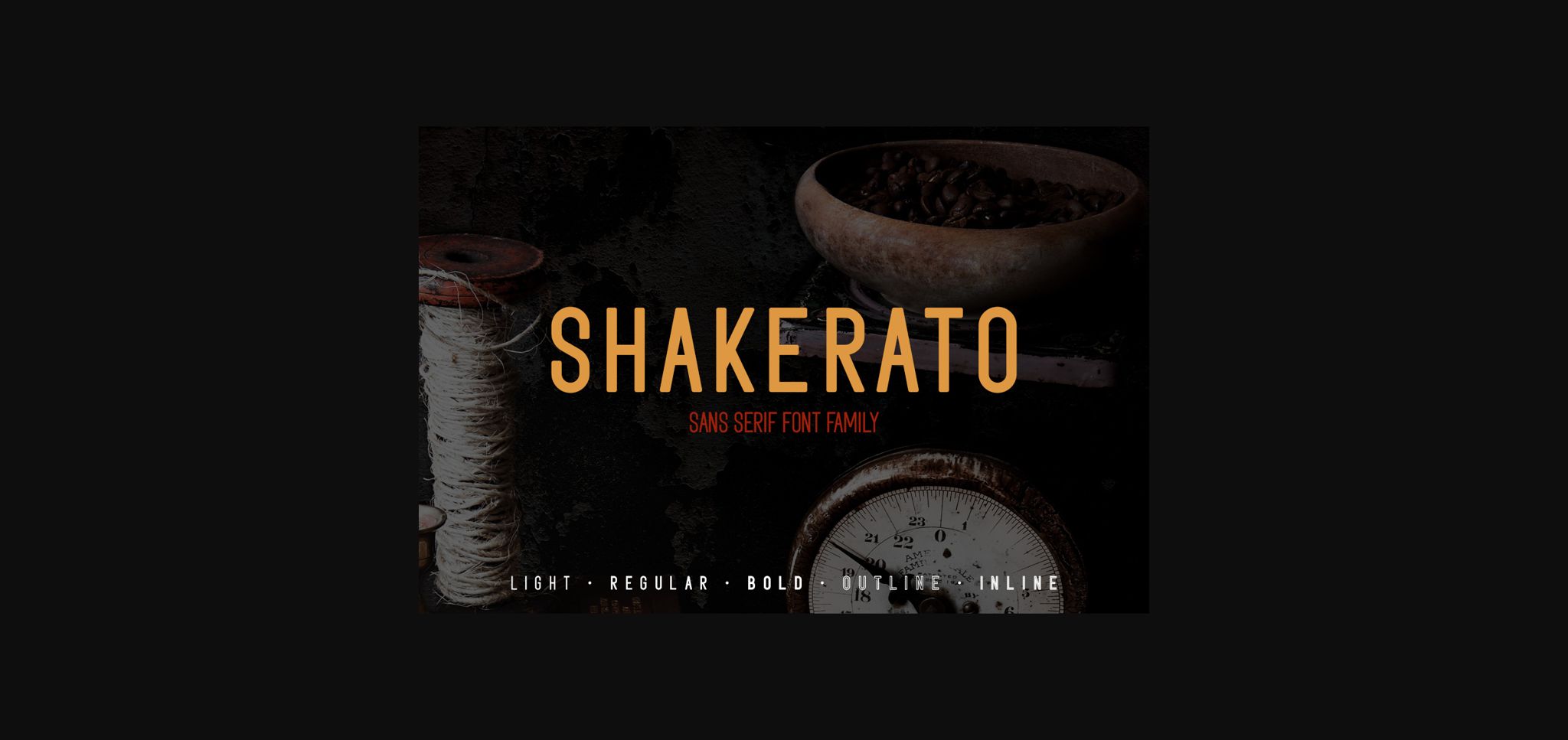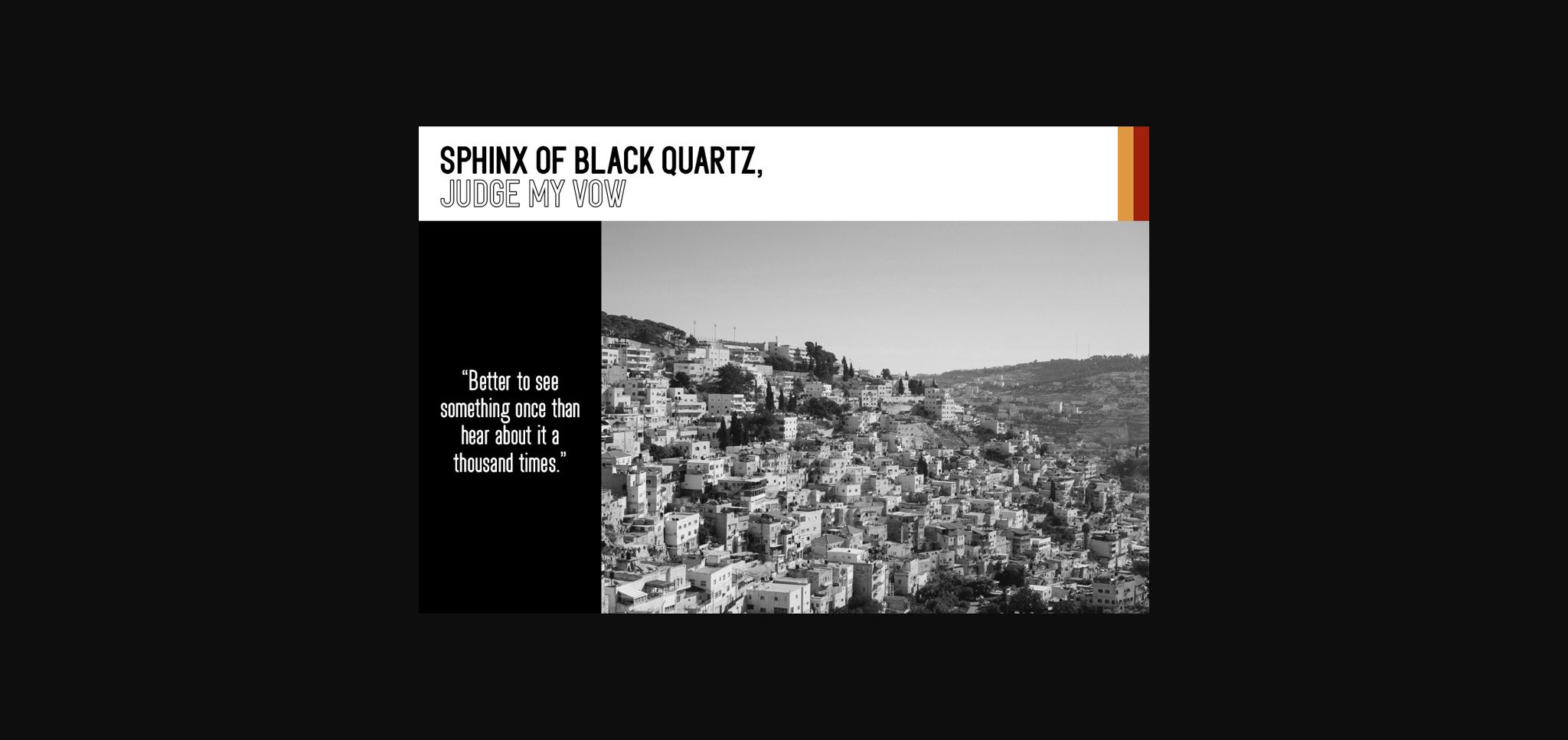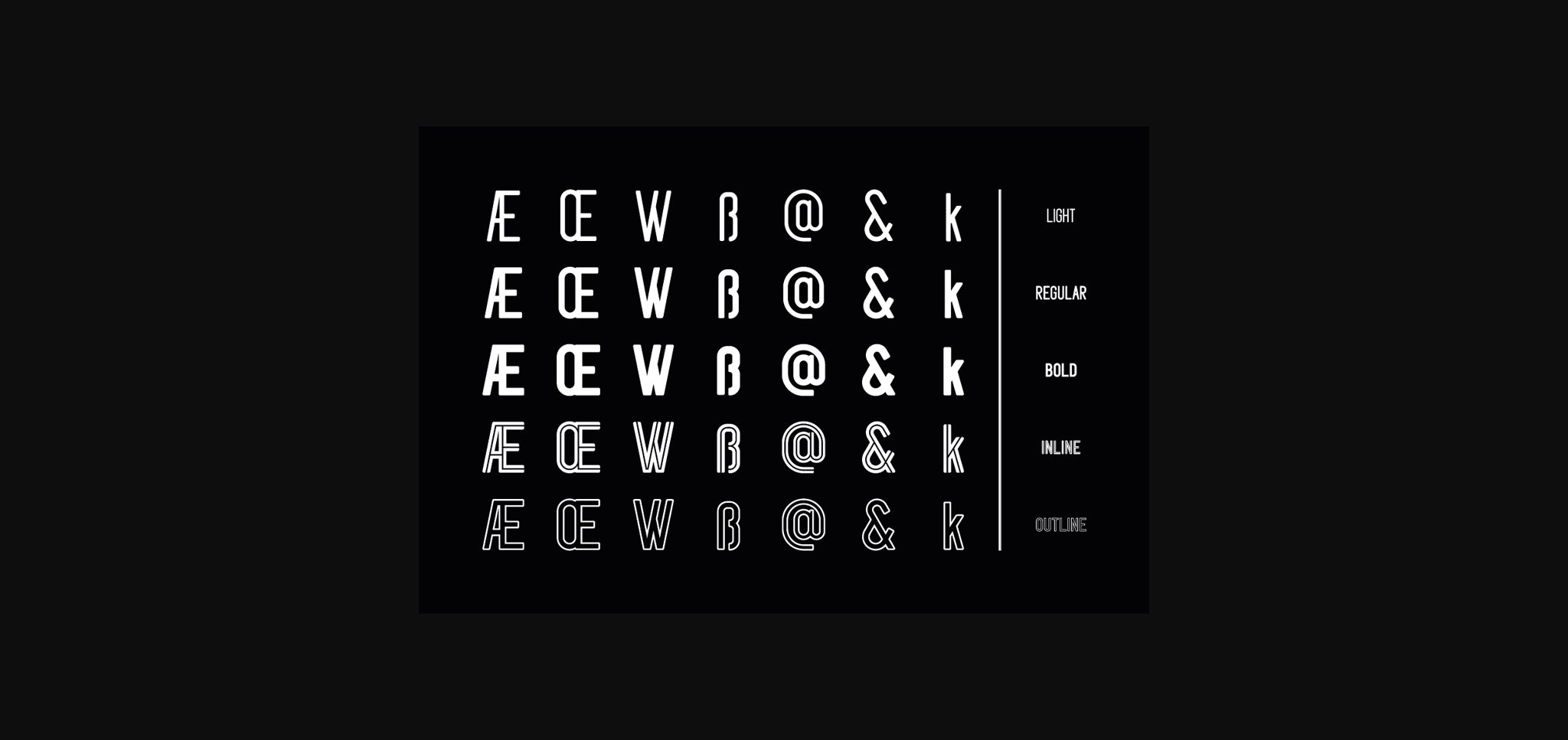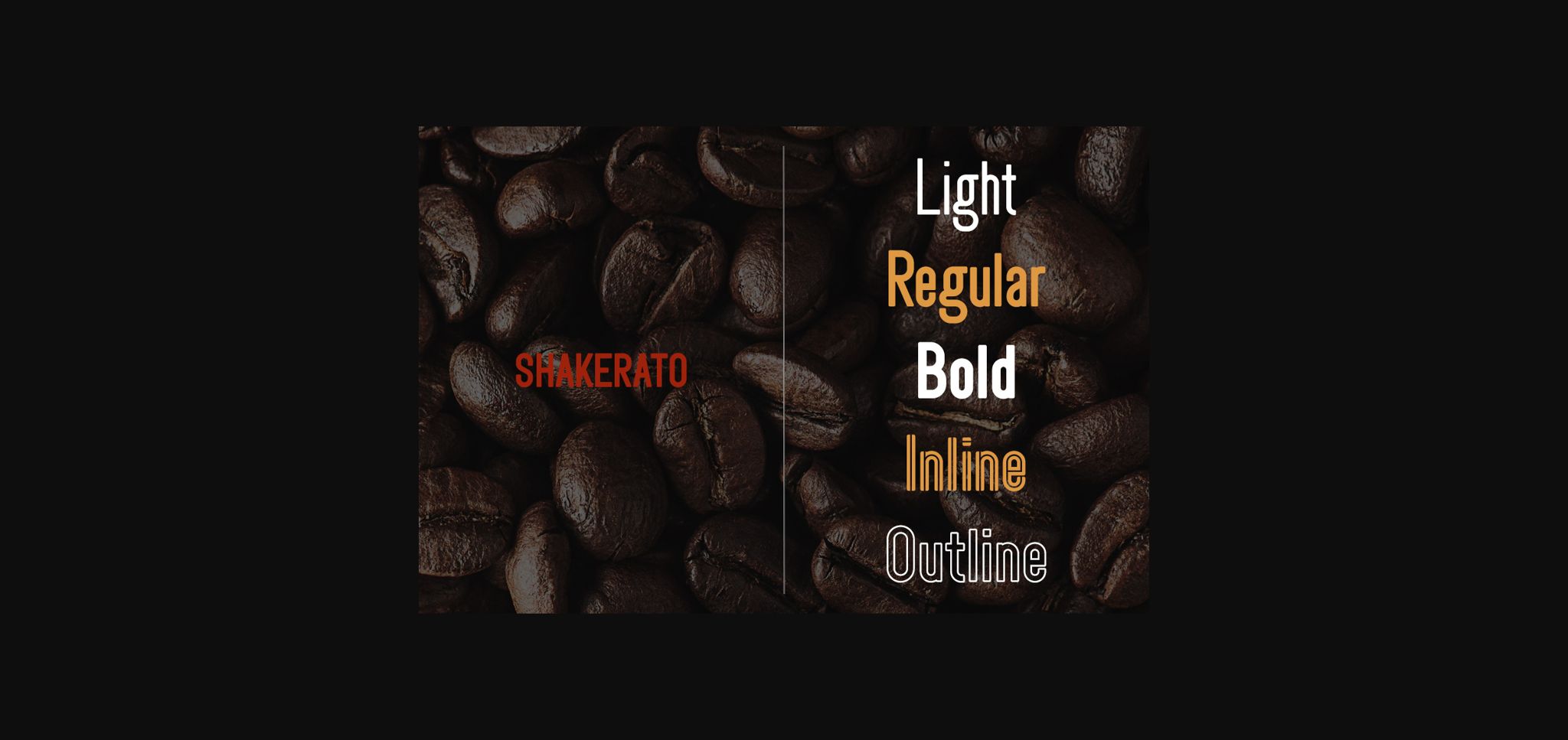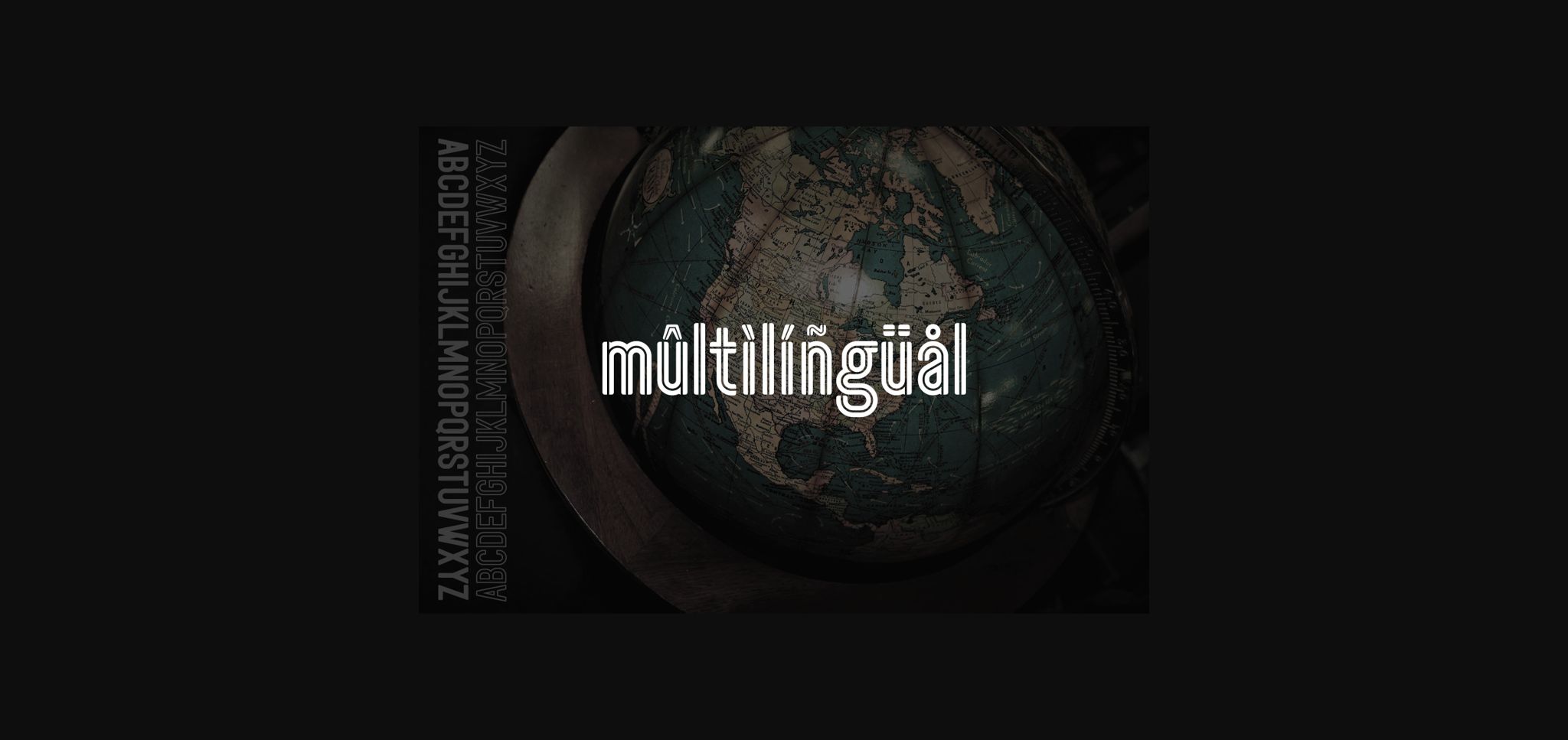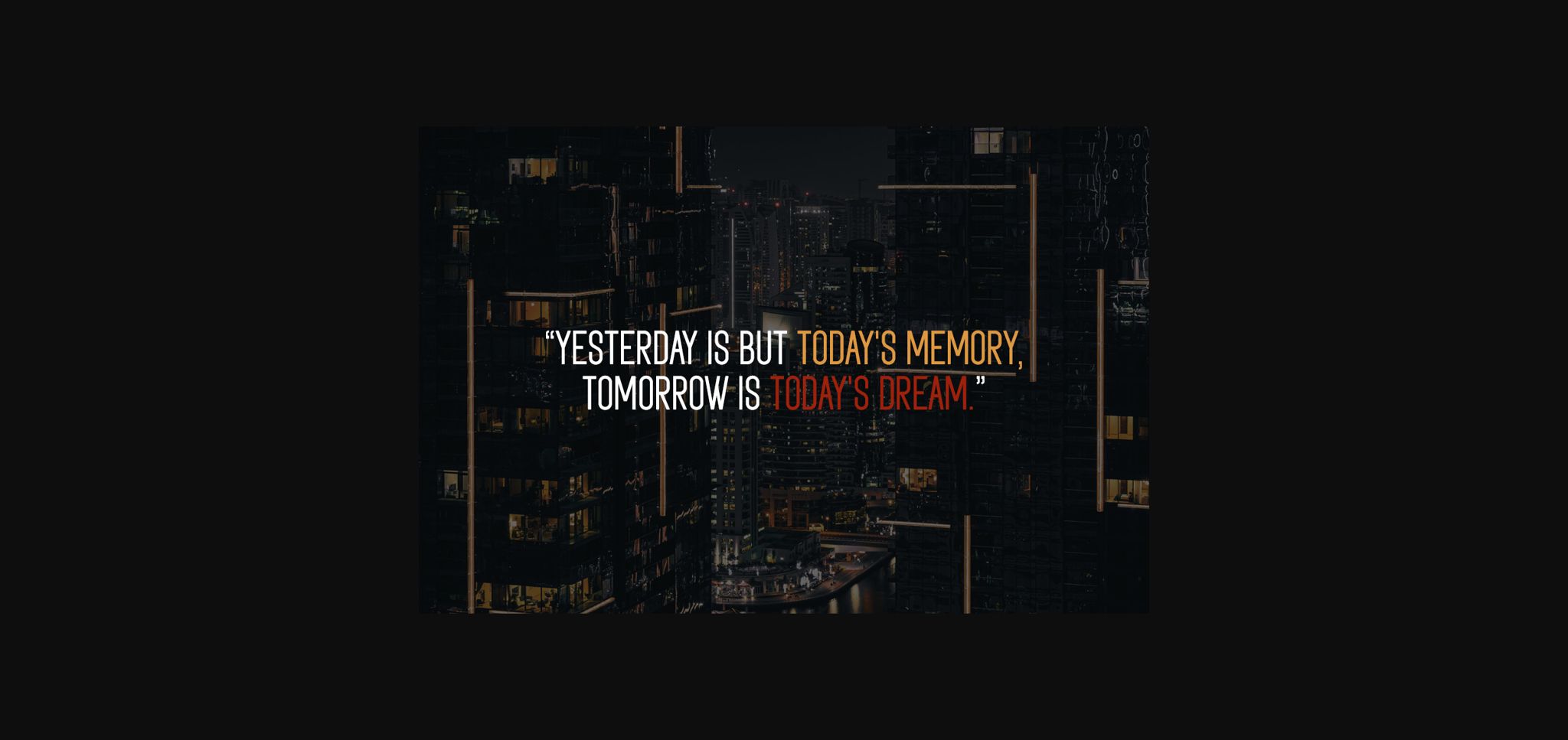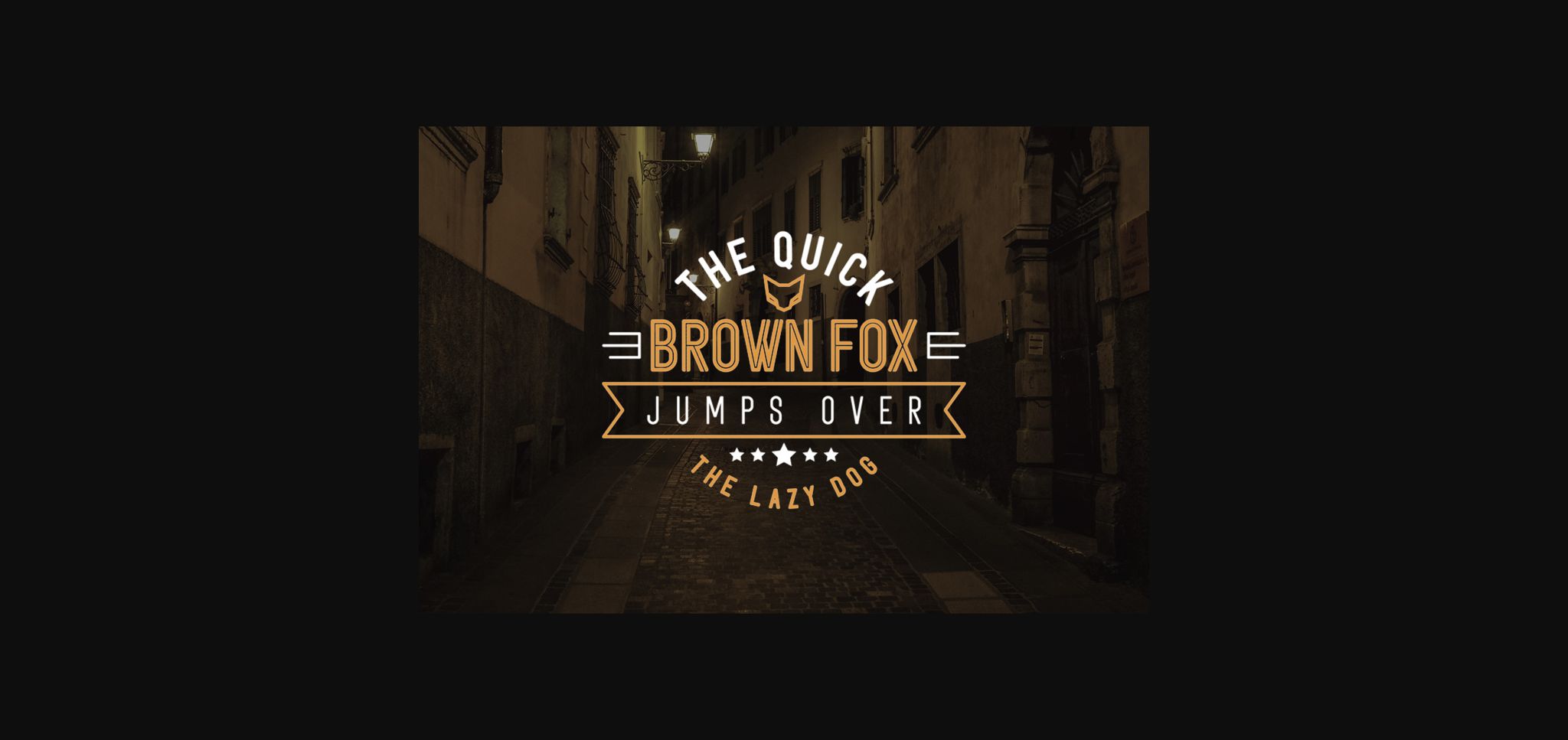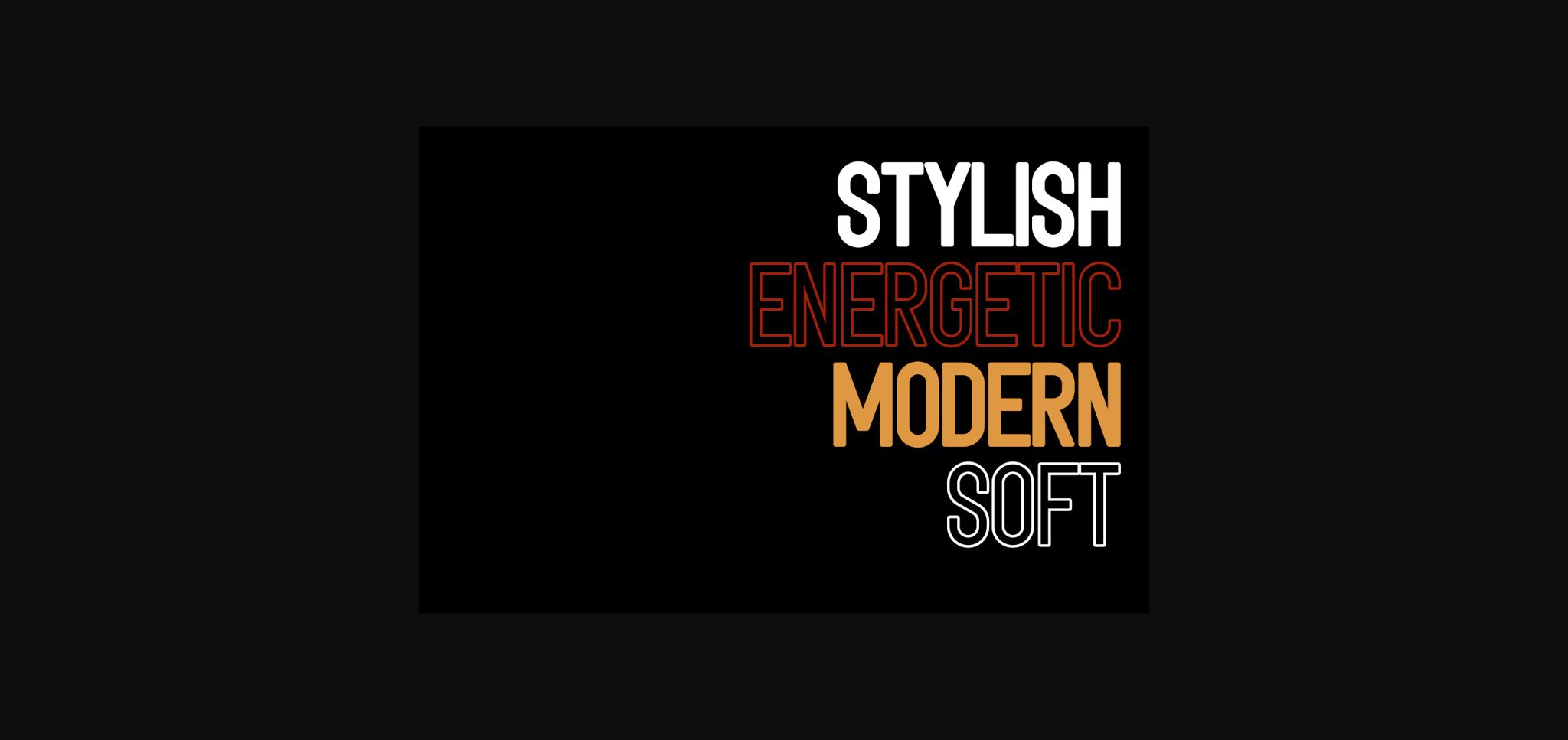
Shakerato Font
About Shakerato Font
Shakerato is a simple and friendly sans serif font. Use it to make your ideas even more realistic and create spectacular designs!